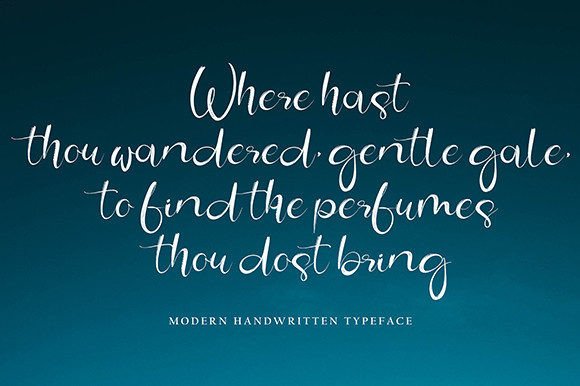
Introduction to Gomha Signature Font
Have you ever been working on a creative project, pouring your heart and soul into it, only to feel like something’s missing? Maybe it’s the perfect font to give it that extra oomph? For designers, the right font can make all the difference in bringing a design to life. That’s where the Gomha Signature Font comes in – a stunning, high-quality handwritten font that’s perfect for fashion branding or editorial designs.
With its smooth curves and elegant feel, the Gomha Signature Font is an excellent design resource that can elevate your creative project to the next level. Whether you’re working on a free download or a paid project, this font is sure to impress. Plus, with its transparent background, you can easily layer it with other design elements to create a unique look that’s all your own.
Key Features of Gomha Signature Font
- High-quality design resource ideal for creative projects, offering a unique and stylish look.
- Features a transparent background, allowing for easy integration with various design elements.
- Perfect for creating professional-looking signatures, logos, and branding materials.
- Designed with a clean and modern aesthetic, making it suitable for a variety of design projects.
- Includes a comprehensive character set, ensuring seamless use in creative projects.
Honest Review: Gomha Signature Font
As a designer, I’m always on the lookout for high-quality design resources that can elevate my creative projects. Recently, I had the chance to work with the Gomha Signature Font, and I must say, it’s a great addition to any design library.
- Unique and stylish design aesthetic
- High-quality vector graphics ensure crisp and clear results
I particularly appreciate the Gomha Signature Font’s versatility, making it suitable for a wide range of creative projects, from branding to digital art.
- Limited character set may require additional font pairing
- No extended font family available
Overall, I’m impressed with the Gomha Signature Font’s performance and would recommend it to fellow designers looking for a stylish and free design resource.
The Gomha Signature Font is ideal for creative projects that require a high-quality, unique font. Use it for branding, logos, and marketing materials to give your design a professional touch.
Tips for Getting the Most Out of Gomha Signature Font
Experiment with different font sizes, colors, and styles to create a distinctive look. You can also use the font in combination with other design elements to create a cohesive visual identity.